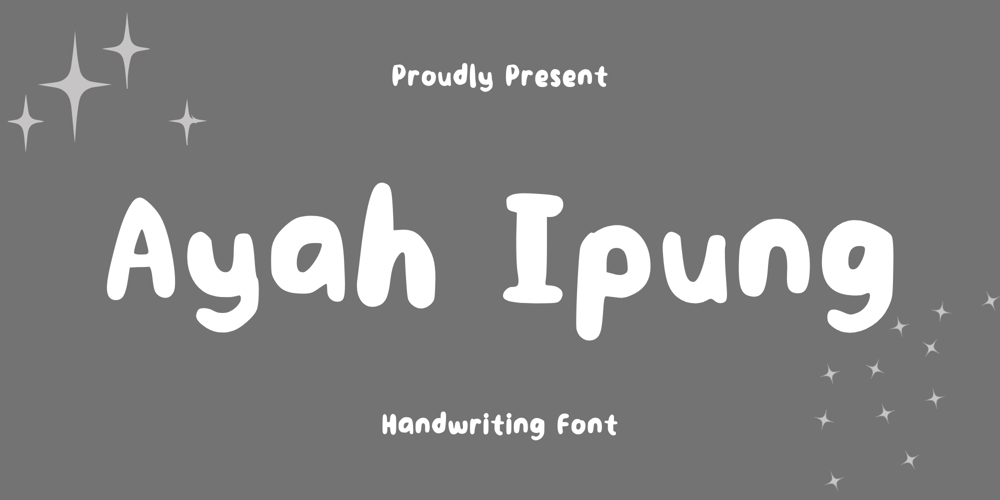
Ayah Ipung Font Family was designed by published by Sidkia Fonts. Ayah Ipung contains 1 styles and family package options. Ayah Ipung font is a unique and cute regular handwriting font that can enhance your design.